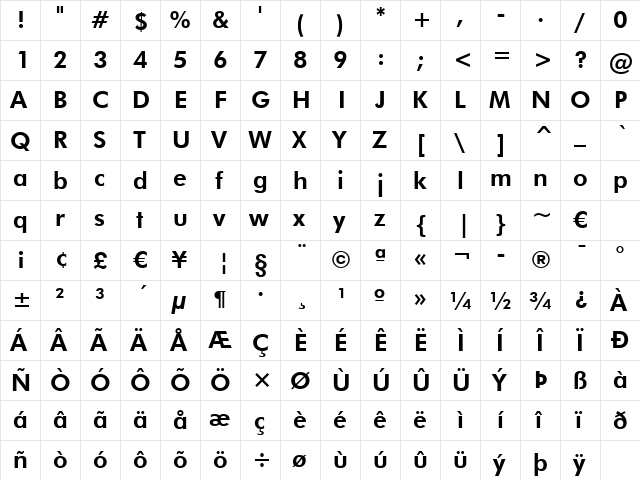
Futura Hv BT Heavy
Design Context for Futura Hv BT Typeface
Futura Hv BT has a distinctly futuristic character, with geometric precision and clean angles that feel at home in technology, gaming, and sci-fi contexts.
Pro Tip: Use Futura Hv BT in combination with a neutral sans for body text. Let it define the brand voice in headlines while keeping reading comfortable elsewhere.